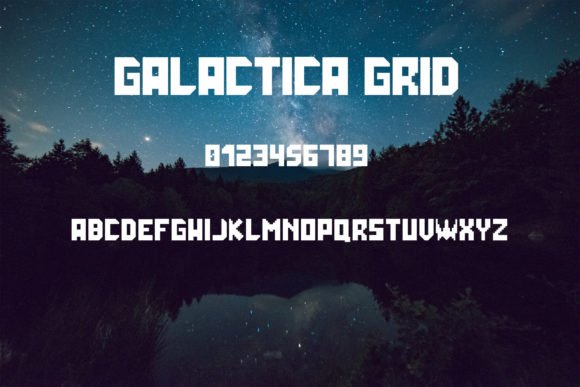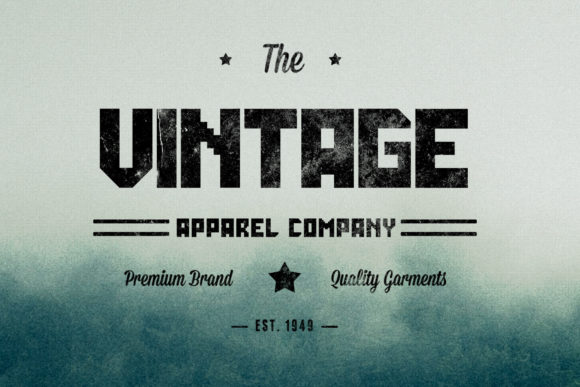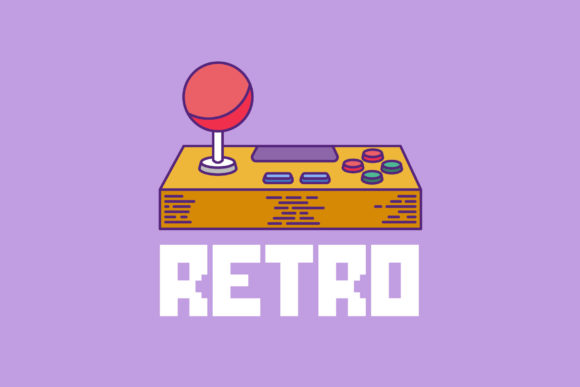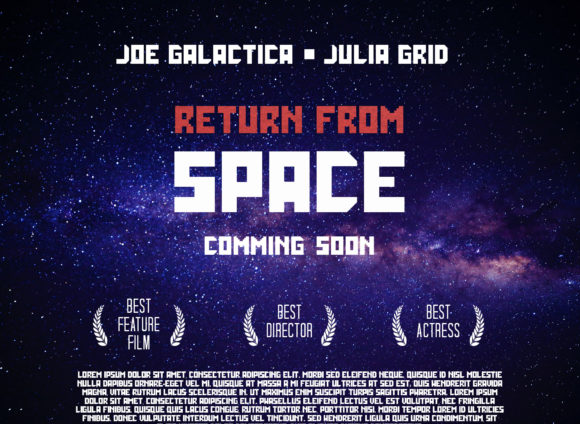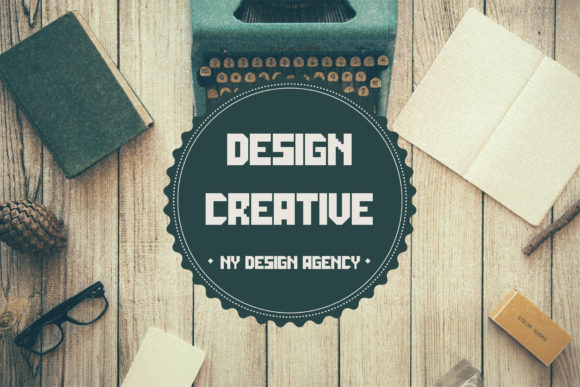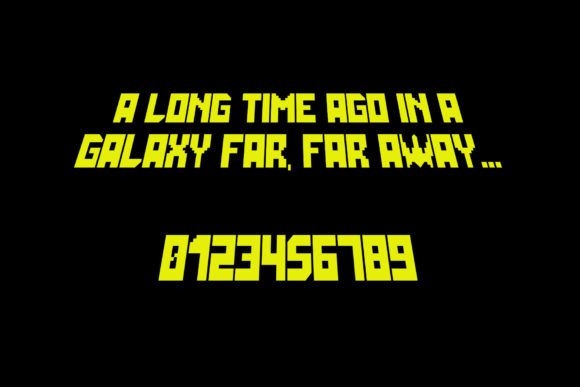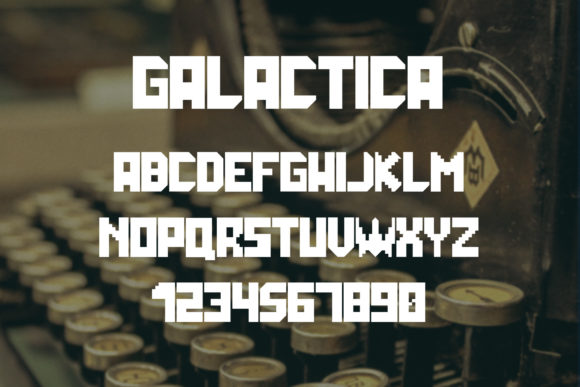
The Power of a Single Font: Unlocking Creativity with Galactica Grid Font
Do you remember the moment when a single font choice transformed your entire design project? For many of us, that ‘aha’ moment is what drives our creative process. It’s the spark that ignites our imagination and sets our vision ablaze. I recall a project where I stumbled upon the perfect font, and it changed everything. It was bold, it was fun, and it perfectly captured the essence of my design.
That font was Galactica Grid, a display font that brings a touch of magic to any creation. Its cool, bold, and fun design makes it perfect for cartoon-related designs, children’s games, and any project that requires a playful twist. As a designer, you know how valuable the right font can be. It can elevate your design, make it more engaging, and leave a lasting impression on your audience. With Galactica Grid Font, you’ll be able to unlock new possibilities and take your designs to the next level.
Galactica Grid Font Key Features
- Font Family: A unique, futuristic sans-serif font designed to evoke a sense of space exploration and technology.
Galactica Grid Font Review
As a designer, I was excited to dive into the Galactica Grid Font. Here’s my honest take on this futuristic font.
- Galactica Grid Font has a unique and futuristic aesthetic that’s perfect for sci-fi or tech-related projects.
- The grid-like structure adds a touch of modernity and makes it easy to read, even at small font sizes.
- The font is highly customizable, allowing you to adjust the spacing, width, and even the color to fit your design needs.
- The font can feel a bit too bold and overwhelming if not used sparingly. Be cautious not to overdo it.
- Some characters, like the ‘i’ and ‘l’, can be difficult to read due to their similarities in shape.
- The font may not be the best choice for projects that require a more traditional or classic feel.
Overall, I think the Galactica Grid Font is a solid choice for designers looking to add a touch of futurism to their projects. With its unique aesthetic and high level of customization, it’s definitely worth considering. However, be mindful of its limitations and use it judiciously to avoid overwhelming your design.
The Galactica Grid Font is ideal for creating futuristic and technological designs. Some common use cases include:
- Creating futuristic logos and branding materials.
- Designing sci-fi themed graphics and illustrations.
- Adding a futuristic touch to presentations and documents.
Remember to experiment with different font sizes, colors, and combinations to get the most out of the Galactica Grid Font.